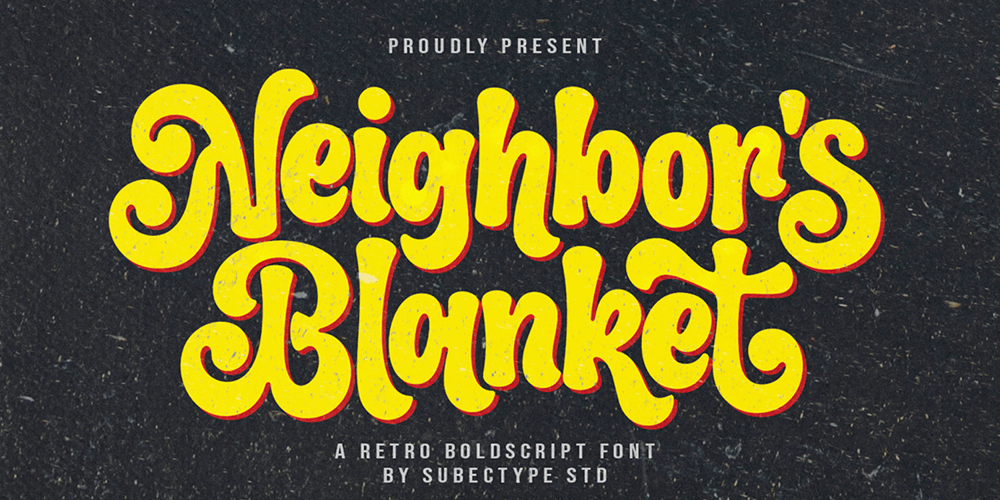
Neighbors Blanket Font Family was designed by Rangga Subekti and published by Subectype. Neighbors Blanket contains 1 styles and family package options. “Neighbors Blanket” is a cozy, modern retro font that captures the warmth of nostalgia while offering a contemporary touch. It features rounded edges and playful curves, making it perfect for designs that aim to evoke comfort and familiarity. Ideal for branding, invitations, and various creative projects, this font combines a friendly aesthetic with legibility, making it a delightful choice for any design needing a touch of warmth and charm.Whats Include: Thankyou Subectype Studio